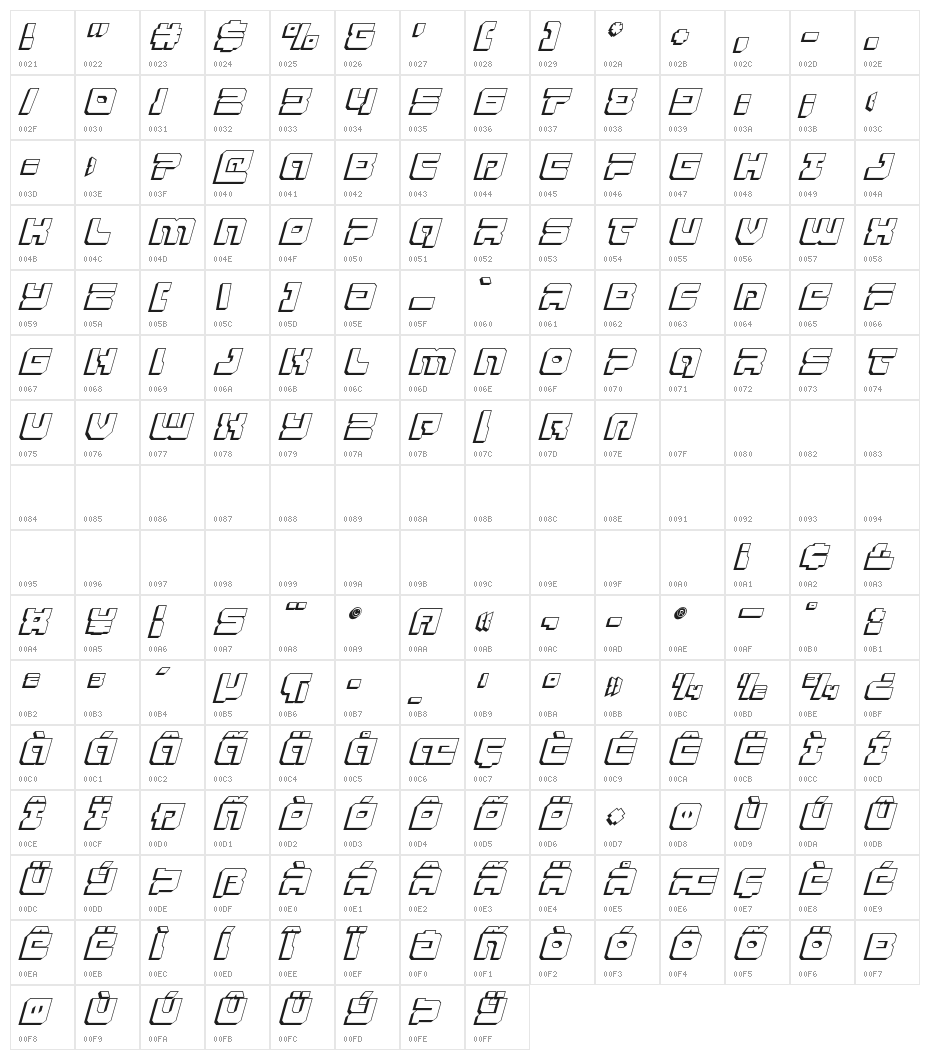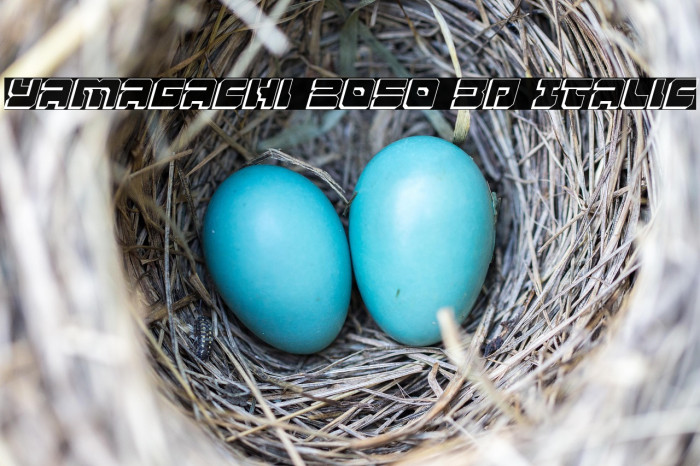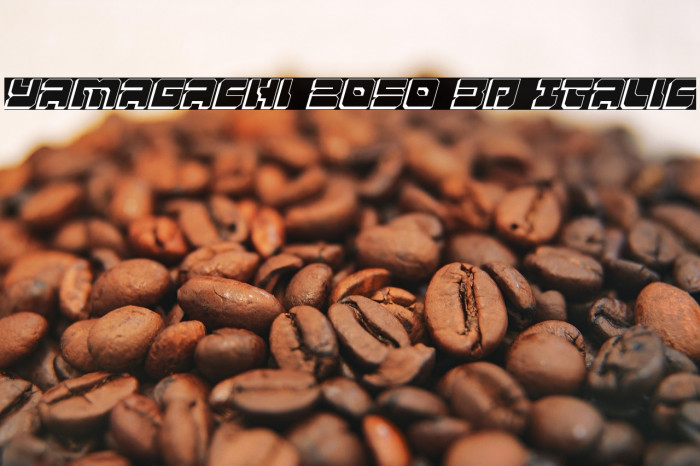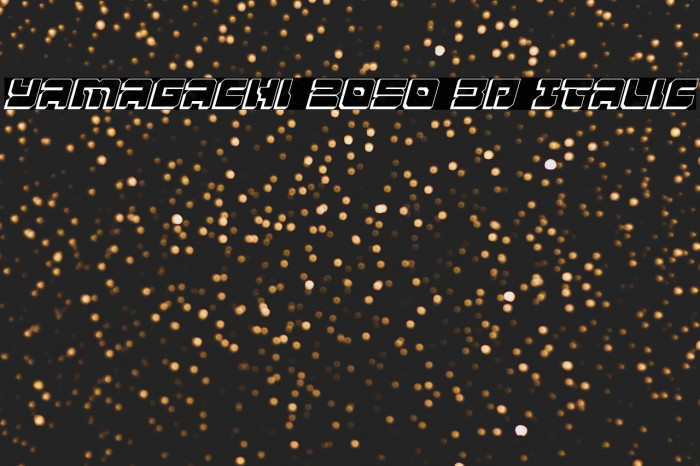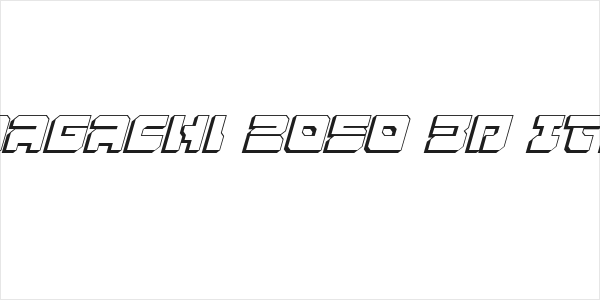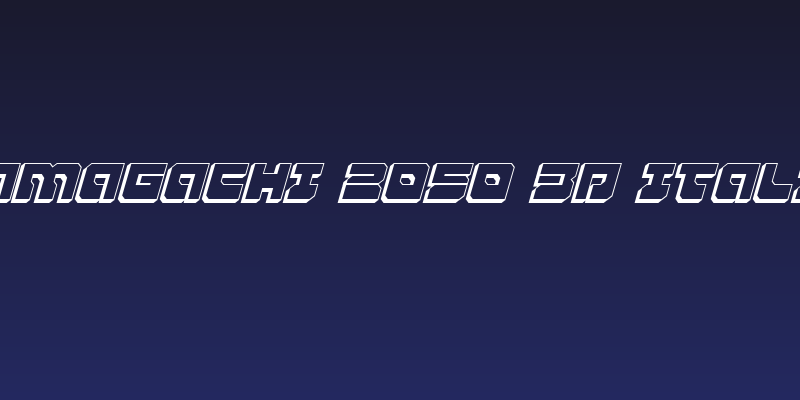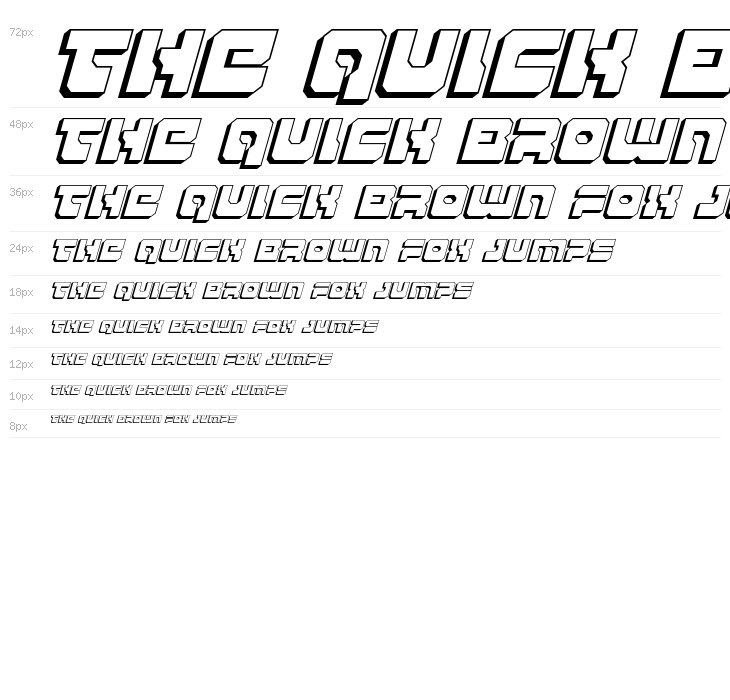
Yamagachi 2050 3D Italic Font
Yamagachi 2050 3D Italic Description
This font features a bold, futuristic design with a distinct 3D effect. The characters are outlined, giving them a hollow appearance that enhances their dimensionality. The angular and geometric shapes of the letters convey a sense of modernity and innovation. Each character is slightly italicized, adding a dynamic and forward-leaning aspect to the overall style. The font includes both uppercase and lowercase letters, numbers, and a variety of special characters, making it versatile for different design needs. Its unique style is suitable for projects that require a standout, tech-inspired aesthetic.
| Proposed Projects | Ideal for sci-fi themed posters, video game titles, tech company logos, and futuristic branding materials. |